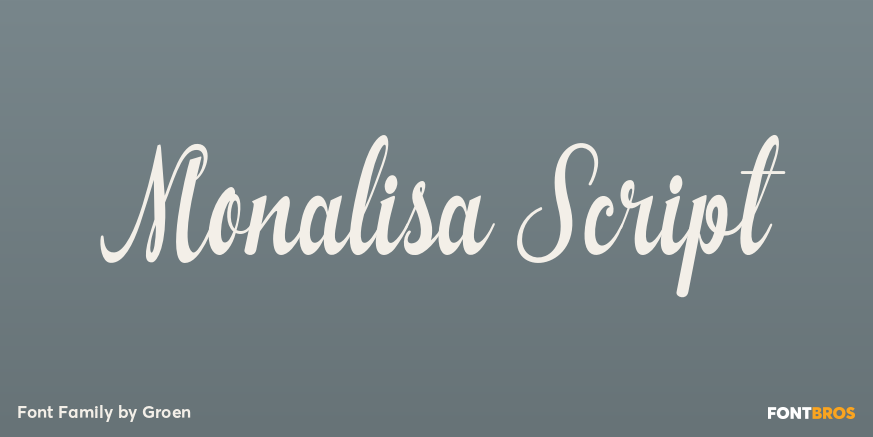
Monalisa Script
About Monalisa Script
Mona Lisa is a unique script with the characteristic thick and thin lines of pointed pen calligraphy. Ideal for labels, events, and many other applications requiring a unique and elegant look. Files Included: Montala .script otf (OpenType) Montala .script…